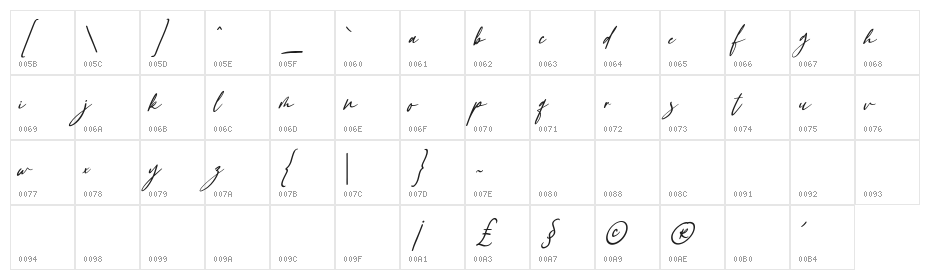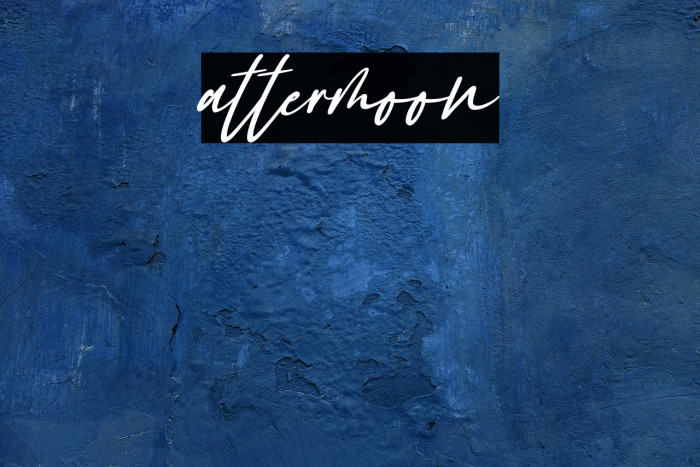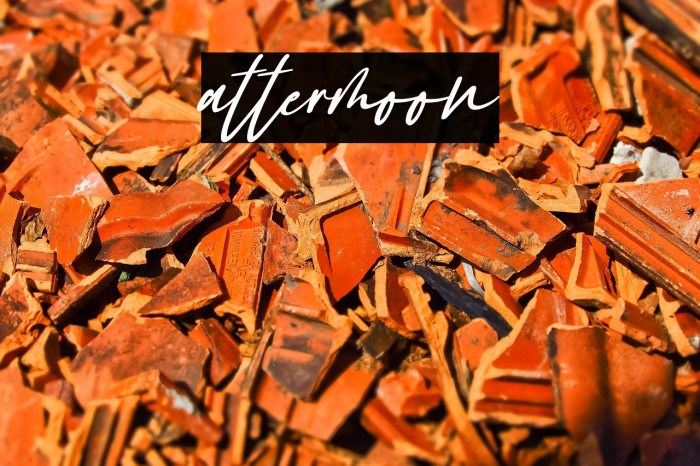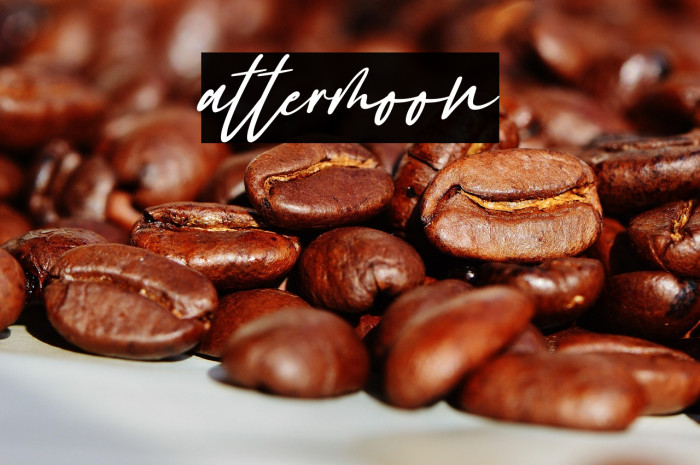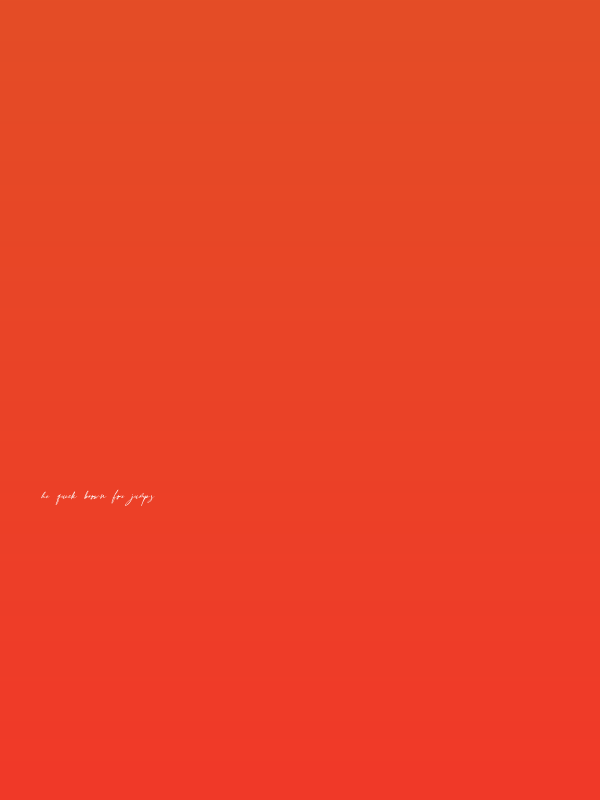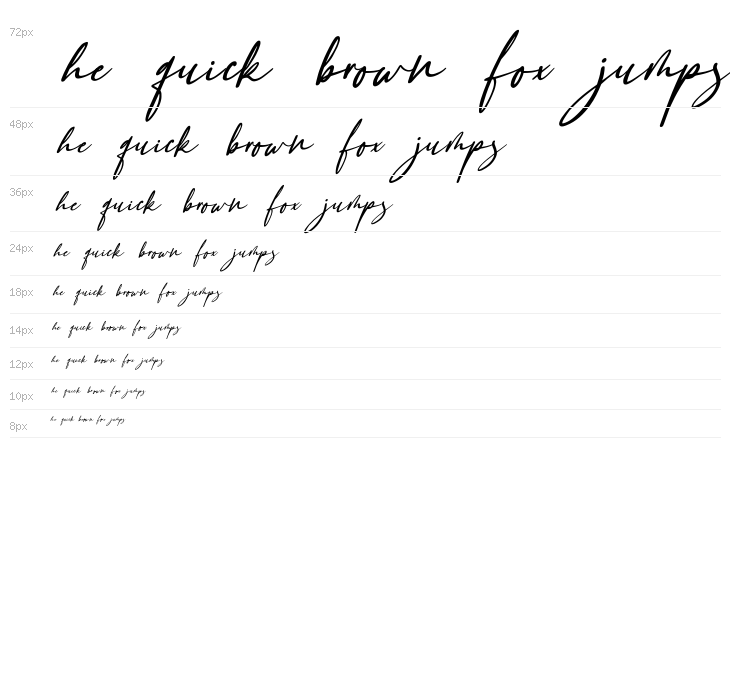
Gattermoon Font
Gattermoon Description
This font features a flowing, cursive style that mimics elegant handwriting. The letters are connected, creating a seamless and fluid appearance. The strokes vary in thickness, adding a dynamic and lively feel to the text. This script font exudes sophistication and charm, making it ideal for projects that require a personal touch. The overall design is both graceful and stylish, with a modern twist on traditional calligraphy.
| Proposed Projects | Ideal for wedding invitations, greeting cards, personal branding, and elegant logos. |